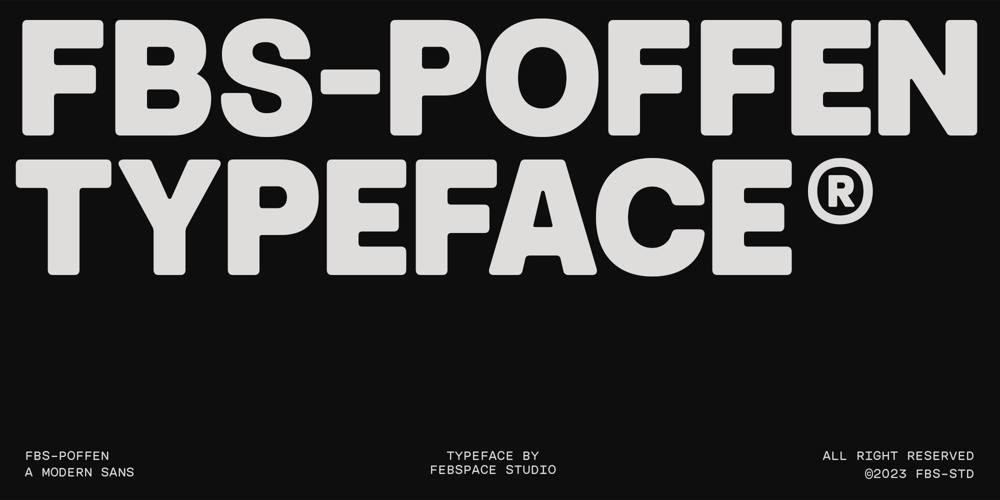
FBS Poffen Font Family was designed by Febri Riansah and published by Febspace Studio. FBS Poffen contains 4 styles and family package options. FBS Poffen, the versatile sans-serif font that’s here to elevate your designs! With four dynamic styles, each offering rounded and pointed corner options, as well as a slanted variant, FBS Poffen gives you the flexibility to tailor your typography to perfection. Seamlessly integrate it into your projects and unleash your creativity with its timeless elegance. Upgrade your design toolkit today and let FBS Poffen transform your work!